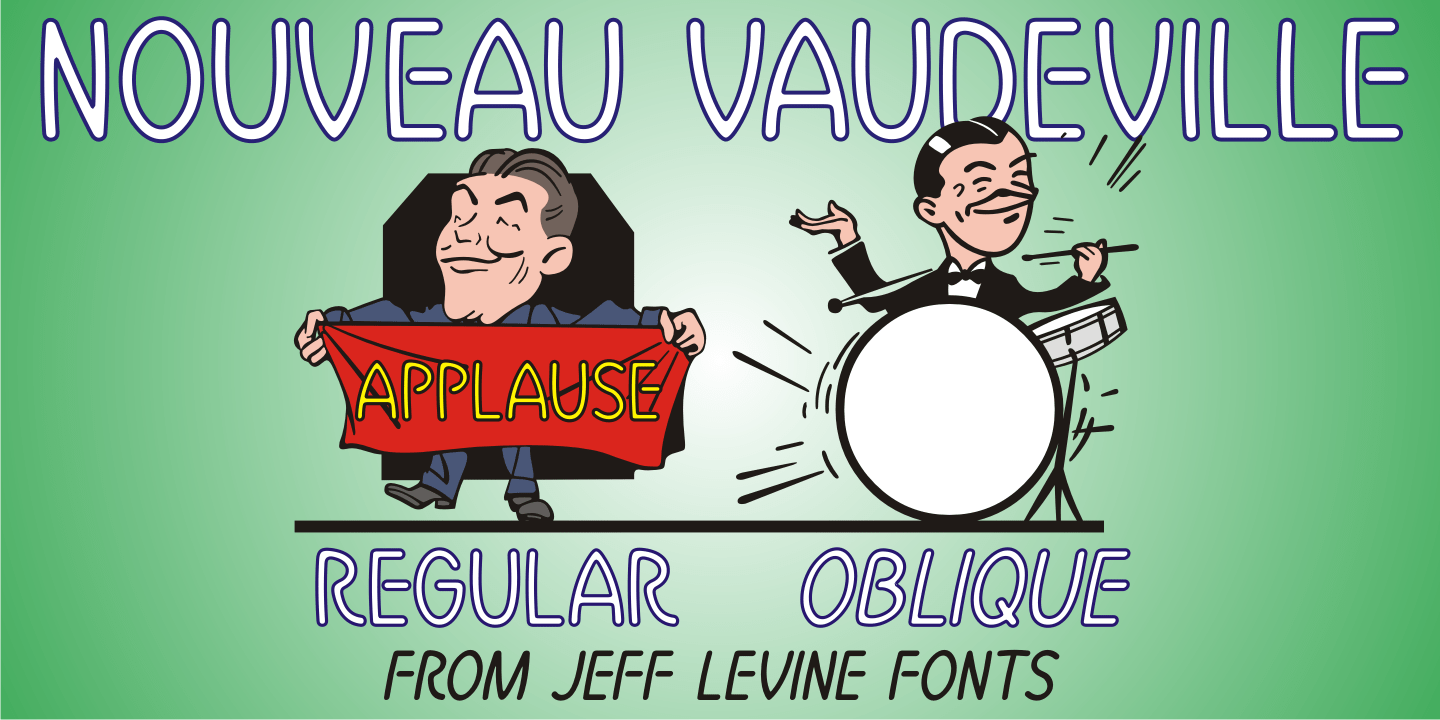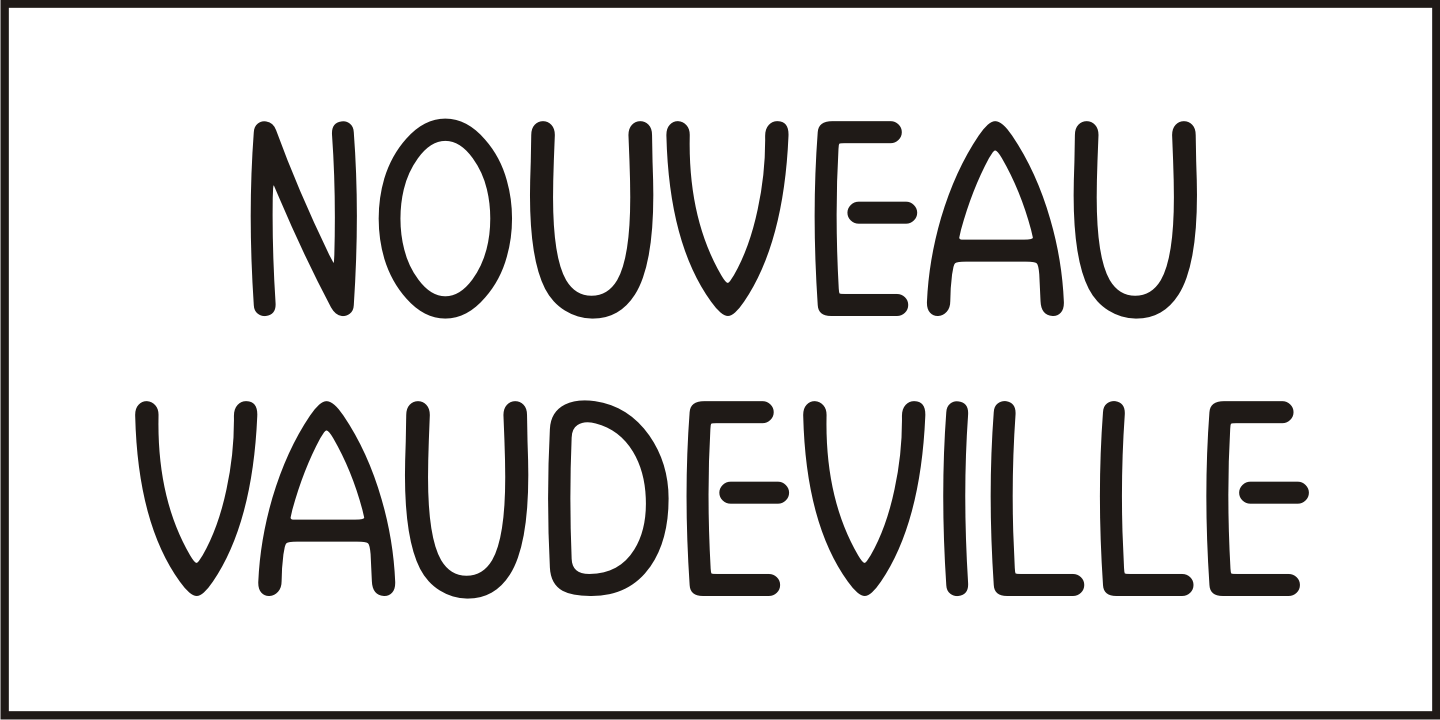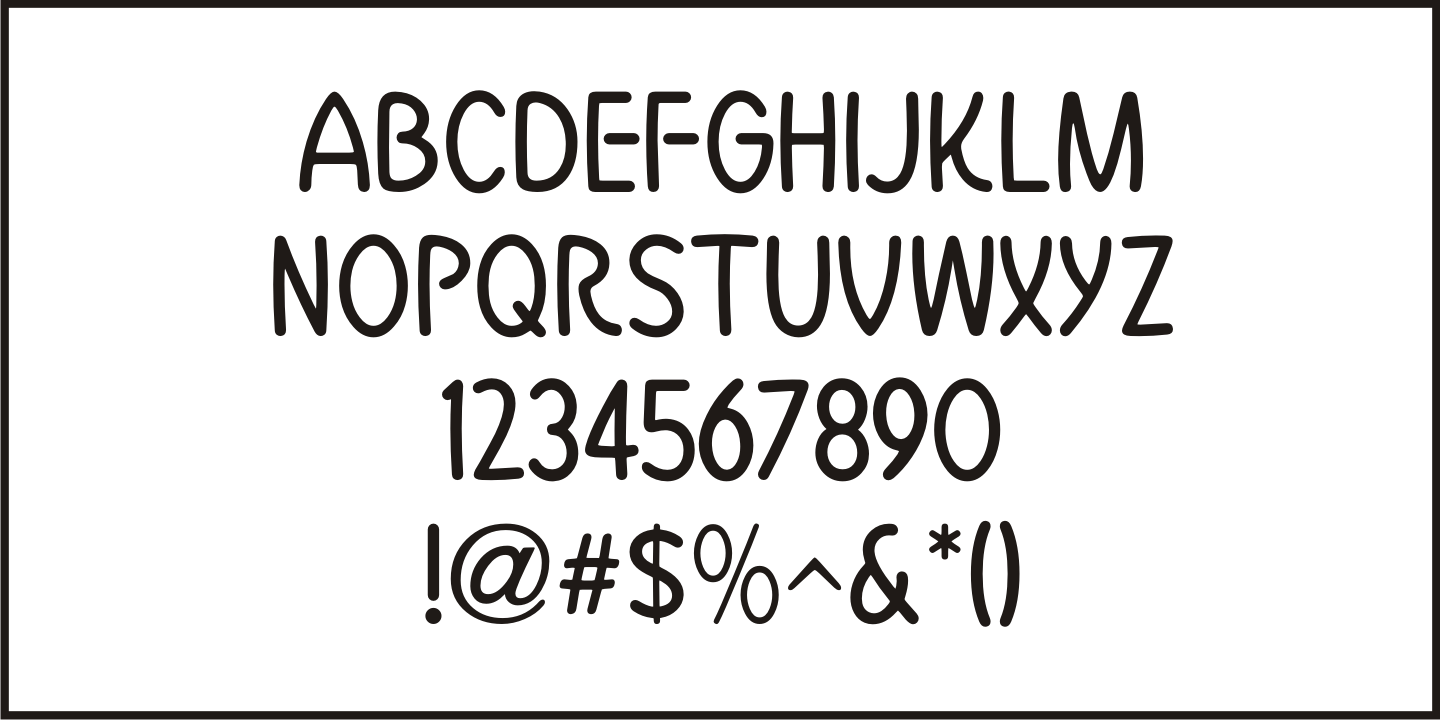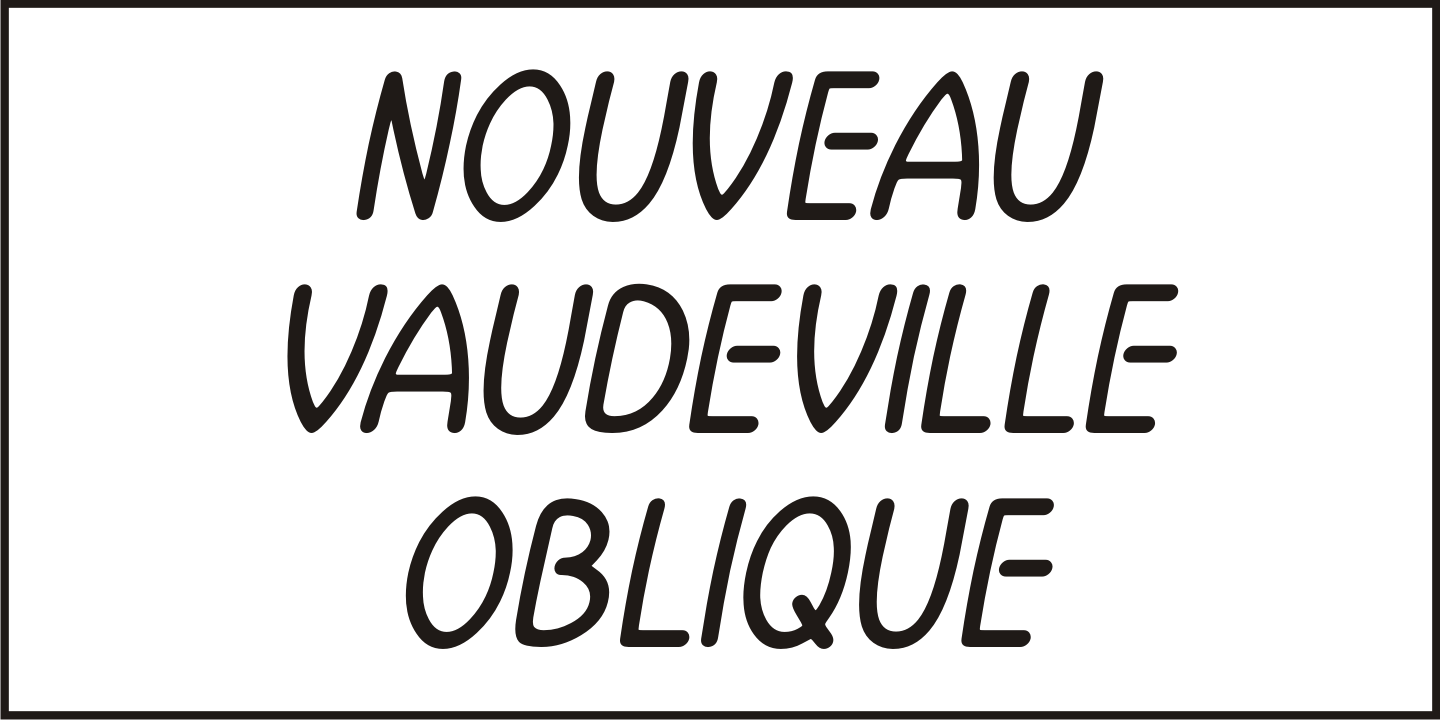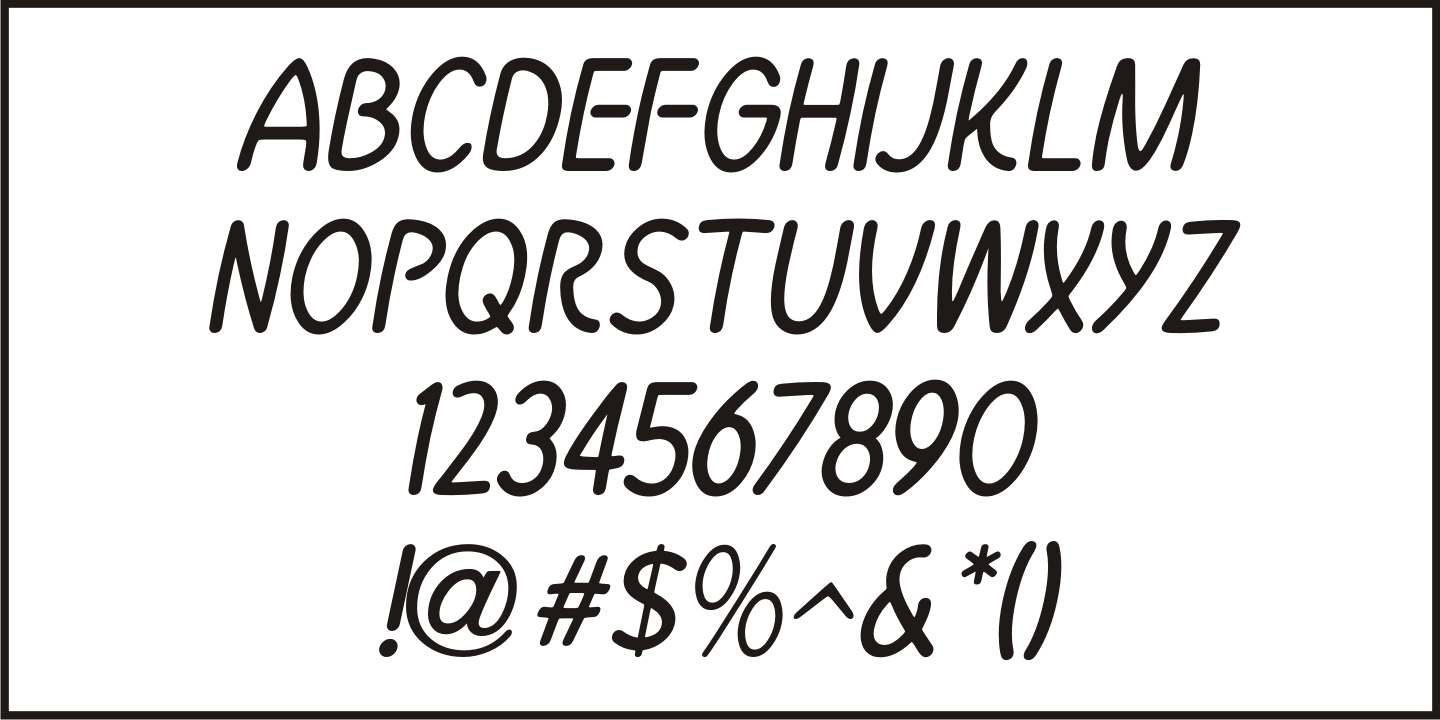
Nouveau Vaudeville
On the cover of the 1926 sheet music for 'There Ain't No Maybe in My Baby's Eyes”, the title is rendered in Art Nouveau hand lettering; pen-drawn with rounded ends.
The type design is now available as Nouveau Vaudeville JNL, in both regular and oblique versions.